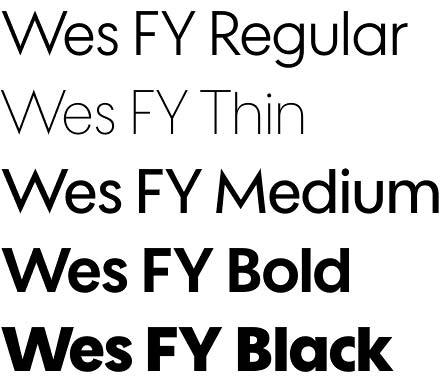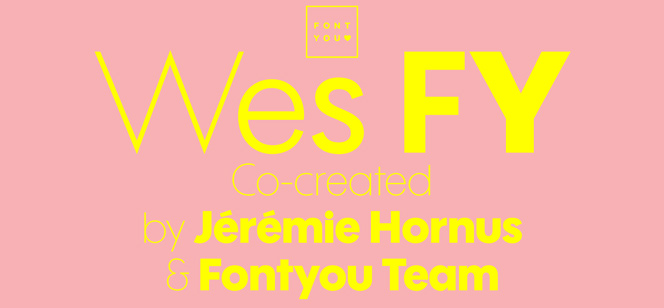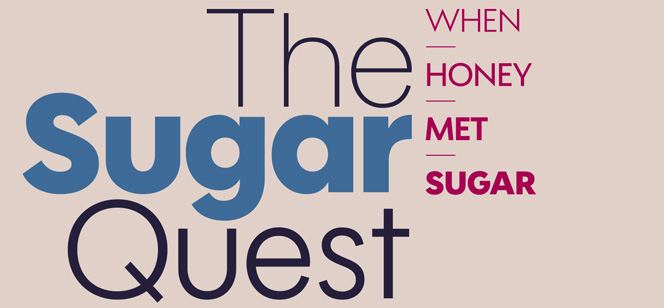
Wes FY font
Wes FY font by Jeremie Hornus and Fontyou Collaborative Type Factory is a geometric grotesk San Serif, a faithful follower of the prominent Futura typeface. Thanks to its large x-height and tight letter-spacing Wes FY type looks neat and spectacular at poster sizes, and with excellent legibility at smaller sizes. Wes FY font family comes in five weights – from Thin to Black (Thin, Regular, Medium, Bold, Black) offering an extensive range of combination options. Also included are a plenty of OpenType features and extended language character set.
Designers: Jérémie Hornus
Publisher: Fontyou